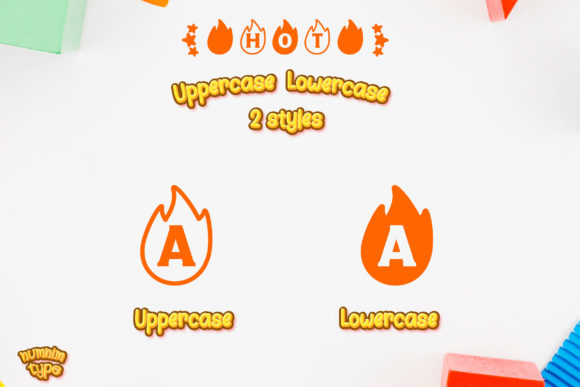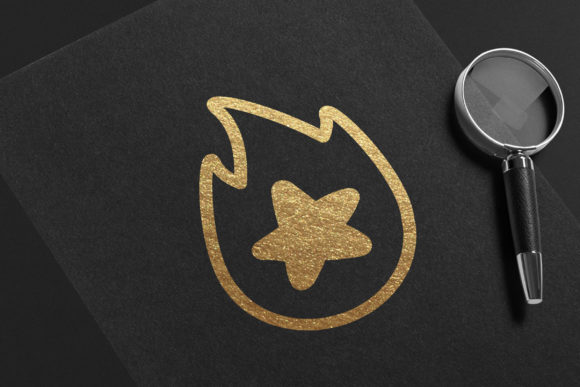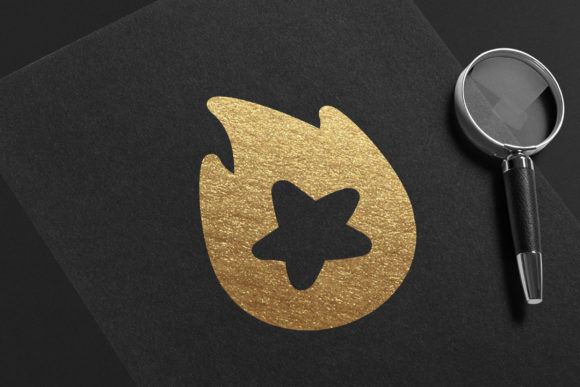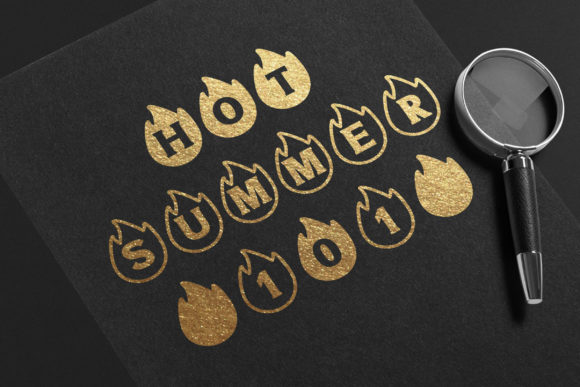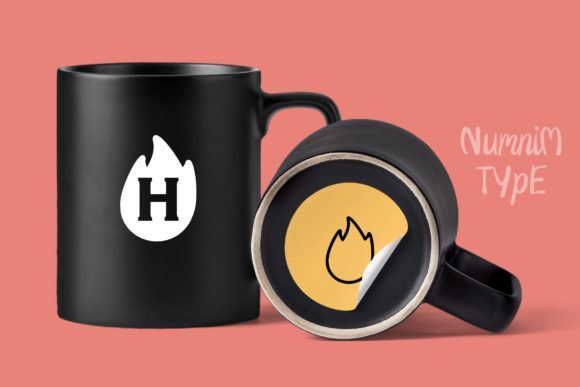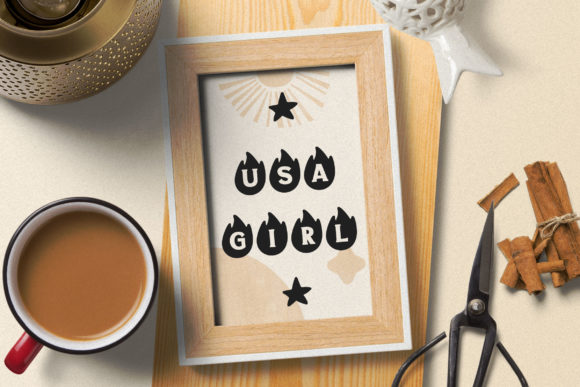
The Perfect Font to Spice Up Your Creations
Have you ever been in the middle of a creative project, and suddenly, you just can’t seem to find the right font to bring it all together? It’s like trying to solve a puzzle, but the final piece just doesn’t fit. That’s when I stumbled upon the Hot Font – a game-changer in the world of typography.
The Hot Font is a decorative masterpiece, designed to add a touch of fun and playfulness to any design. With its unique characters and PUA encoding, this font is perfect for creating stickers, mugs, t-shirts, and even event invitations. As a designer, you’ll love how easily you can access all the glyphs and swashes, making it a valuable addition to your toolkit.
Whether you’re a seasoned pro or just starting out, the Hot Font is sure to be a hot commodity in your creative arsenal. Get ready to take your designs to the next level with this sizzling new font!
Key Features of Hot Font
- Unique Characteristic: Hot Font features a unique ‘heat effect’ that can be applied to text, giving it a dynamic and eye-catching appearance.
Hot Font Review
Overall, I have mixed feelings about Hot Font. While it has some amazing features, it also has some limitations that prevent it from being a top-notch font.
- Unique Design: Hot Font has a bold, eye-catching design that makes it perfect for headings and titles.
- High Contrast: The font’s high contrast between letters and the background makes it easy to read, even at small sizes.
- Customization Options: Hot Font offers a range of customization options, including font sizes, colors, and effects.
- Readability Issues: While the high contrast is great, it can sometimes make the font look cluttered and difficult to read.
- Limited Font Sizes: Hot Font’s font sizes are limited, which can make it difficult to use in situations where a smaller font size is required.
- No Support for Complex Text: Hot Font does not support complex text, such as text with multiple fonts or font sizes.
Overall, I would give Hot Font 3 out of 5 stars. While it has some great features, its limitations prevent it from being a top choice for designers.
Hot Font is ideal for creating attention-grabbing headlines, titles, and quotes. It’s also great for adding a touch of elegance and sophistication to your designs. Some common use cases include:
- Creating a bold and eye-catching title for a marketing brochure or flyer
- Adding a touch of luxury to a wedding invitation or menu
- Creating a striking headline for a social media post or blog article